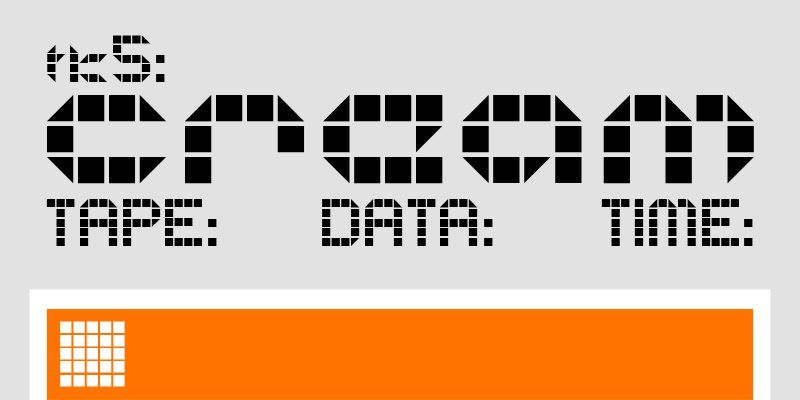
BD Brick is a modular font created with square and triangle bricks. Designed by Lopetz in 1996 and updated in 2007.
Buro Destruct
Swiss Graphic Design Studio «Büro Destruct» was founded 1994 in Bern by «HGB Fideljus» Berger & Lorenz «Lopetz» Gianfreda. In 1995, Marc «MB» Brunner & Heinz «H1» Reber joined the current group formation. Over the next few years Büro Destruct grew into an internationally acclaimed multidisciplinary design studio. Since 1995, Büro Destruct is releasing its fonts on their type foundry called «Typedifferent.com». As the name «Typedifferent» implies - the Büro Destruct fonts are mainly display typefaces with unique lettering characteristics. They appear on numerous record sleeves, in magazines, movie and TV titles, on fashion-prints and websites.